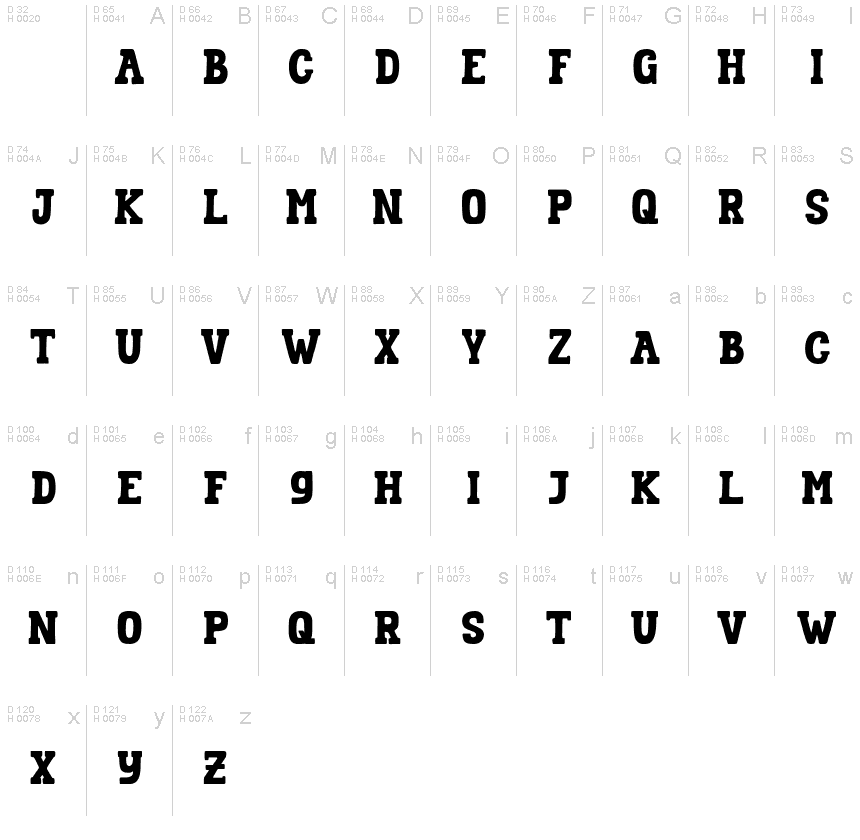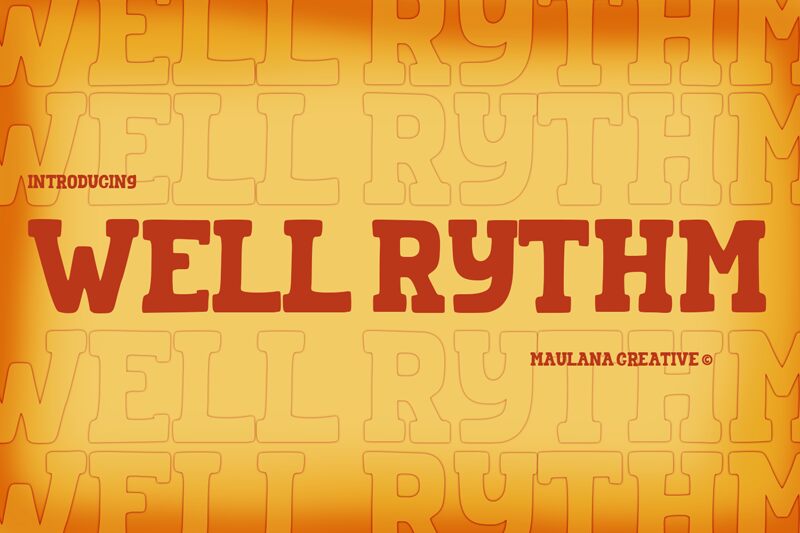
Wellrythm Free Regular
Wellrythm is a stunning display font created by the talented designer, Maulana Creative. With its semi-bold weight and unique style, Wellrythm is perfect for projects that require a bold and eye-catching typeface. Whether you're designing a logo, creating a poster or crafting social media graphics, this font will make your message stand out. Its modern yet timeless design makes it perfect for everything from fashion and beauty brands to technology and finance companies. Trust us, Wellrythm will add the right amount of sophistication and flair to any project.